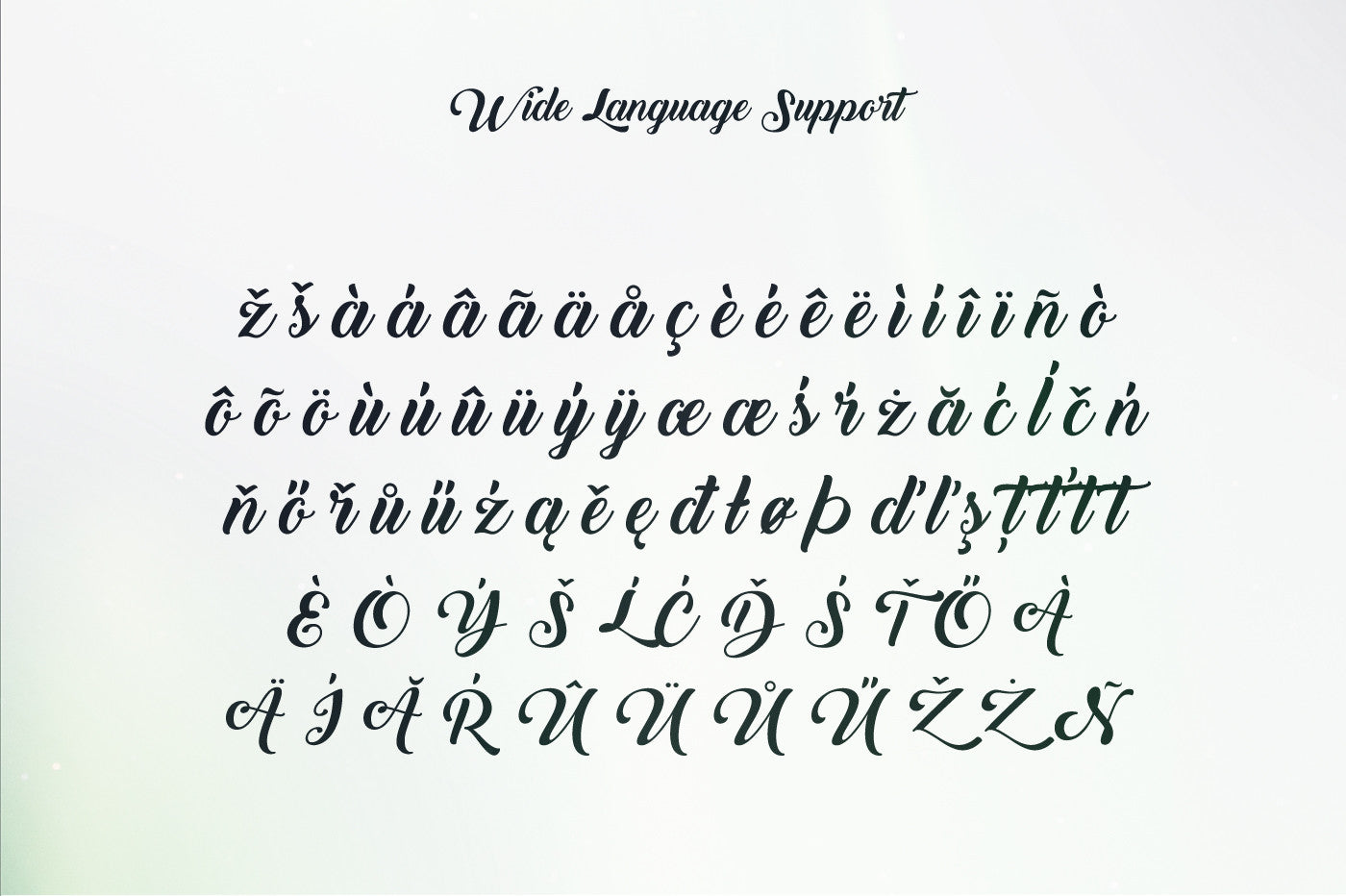
Back to Black - Free Script & Calligraphy Font
We're giving you value again with a perfect calligraphic and handwritten font by Misti's Fonts. I have made all the preview images to show the potential of this must-have free font. This font is free for personal and charity use. For a commercial license, contact Misti's Fonts.